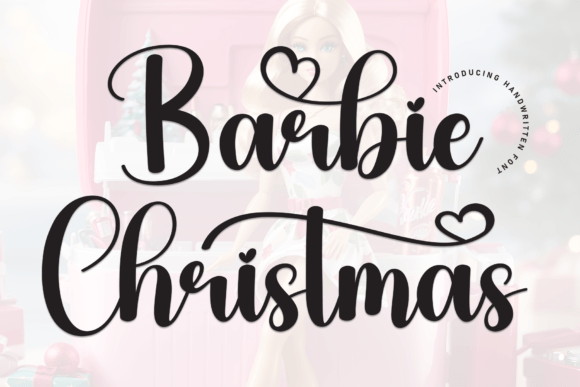
Introducing Barbie Christmas Font, the perfect addition to your creative arsenal! This delightful script font, created by the talented icon Creativewhitee, will instantly infuse your designs with a sweet and friendly vibe. Get ready to captivate your audience and spread holiday cheer with this one-of-a-kind typeface!
Barbie Christmas Font is the ultimate choice for those seeking the best font for mini LED displays. Its intricate and carefully crafted design ensures that every character shines brightly, creating a mesmerizing visual experience for your audience. Let your messages come to life with the elegant curves and playful strokes of this extraordinary font.
Unleash your creativity and explore endless possibilities with Barbie Christmas Font. Whether you're designing festive greeting cards, crafting eye-catching social media posts, or adding an extra touch of charm to your website, this font is guaranteed to make a lasting impression. Stand out from the crowd and let your designs sparkle with joy!
Embrace the uniqueness of Barbie Christmas Font and let it become the voice of your brand. Its natural and distinctive style effortlessly conveys authenticity and creativity, instantly capturing the attention of your target audience. From elegant wedding invitations to joyful party decorations, this font will add the perfect dose of whimsy to any project.
Not only does Barbie Christmas Font offer an enchanting visual experience, but it also brings a touch of nostalgia and warmth. Imagine the cozy feeling of sitting by the fireplace, surrounded by loved ones during the holiday season. This font encapsulates that magical ambiance, making it the ideal choice for any design that aims to evoke powerful emotions and create lasting memories.
With Barbie Christmas Font, the sky's the limit! Let your imagination run wild as you explore its versatility and adaptability. This font seamlessly blends with various design elements, allowing you to effortlessly create cohesive and visually stunning compositions. Whether you're aiming for a modern or vintage look, this font will effortlessly elevate your designs to new heights.